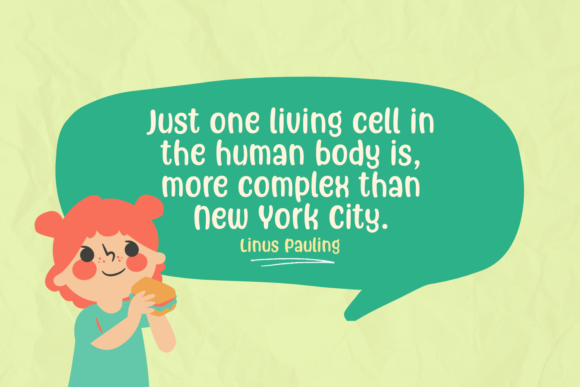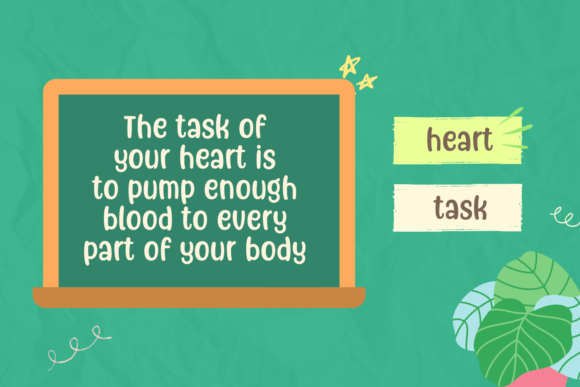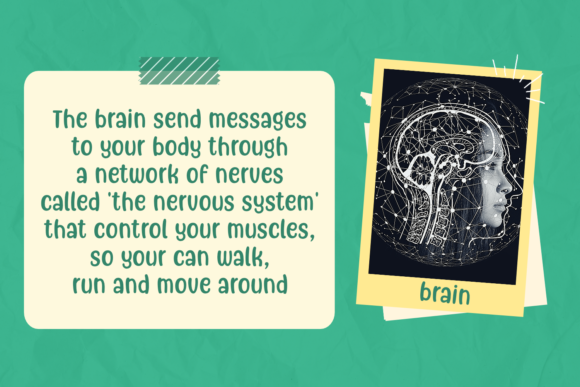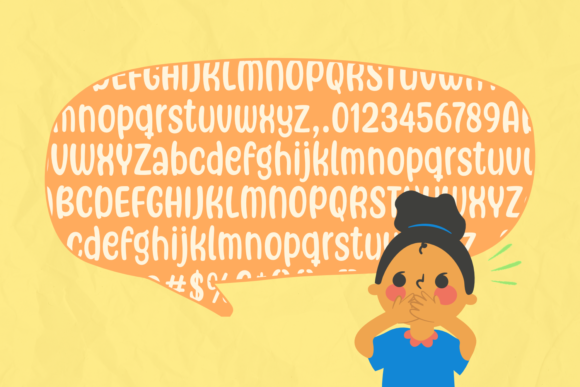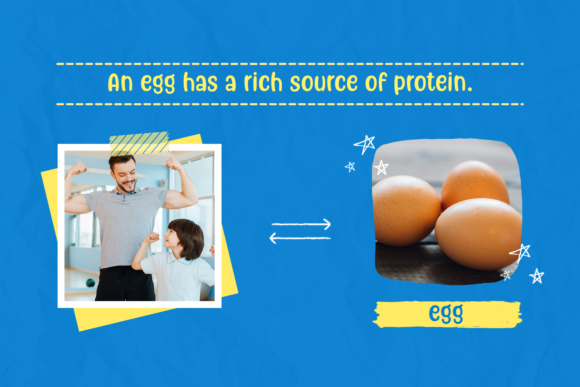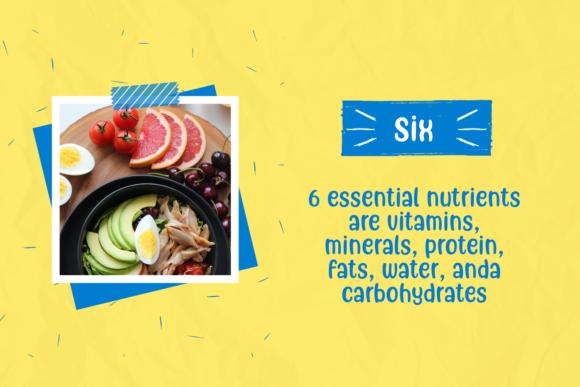
Introduction to Freely Movable Font
That’s where the Freely Movable Font comes in – a chic and bubbly display font that embodies playfulness and authenticity. Whether you’re working on a children’s activity or a school project, this font is sure to bring a smile to your face and a touch of whimsy to your design. With its transparent background and high-quality design, it’s a valuable addition to any designer’s toolkit, and it’s available for free download.
Honest Review: Freely Movable Font
As a designer, I’m always on the lookout for high-quality design resources to elevate my creative projects. The Freely Movable Font has been a recent addition to my toolkit, and I’m excited to share my thoughts on this free download.
- ✨ The font has a unique, elegant feel that’s perfect for formal or creative projects.
- ✨ The transparent background option allows for seamless integration with any design element.
- ✨ The font is highly customizable, making it easy to adapt to different design styles.
- ⚠️ The font may not be suitable for extremely small or large text sizes, as it can become distorted.
- ⚠️ Some users may find the font’s style too ornate or distracting.
Overall, I’m impressed with the Freely Movable Font, and I think it’s a valuable addition to any designer’s library. While it may not be perfect, its unique style and high-quality design make it a great choice for creative projects.